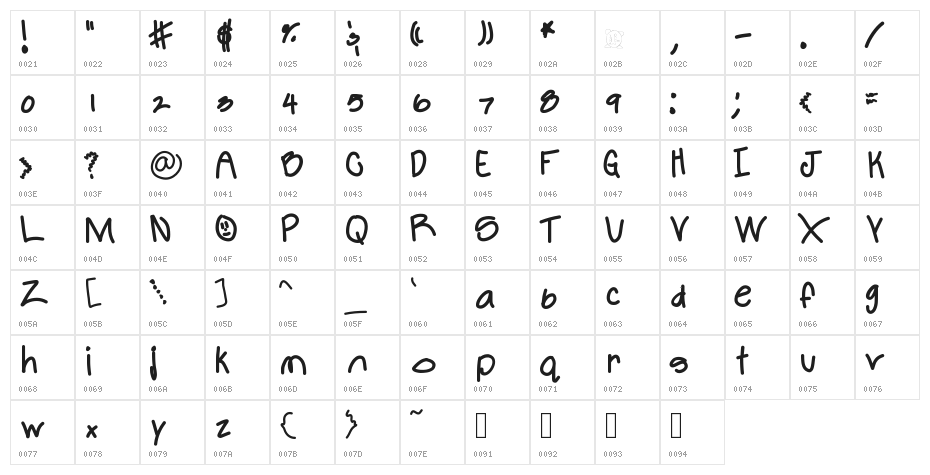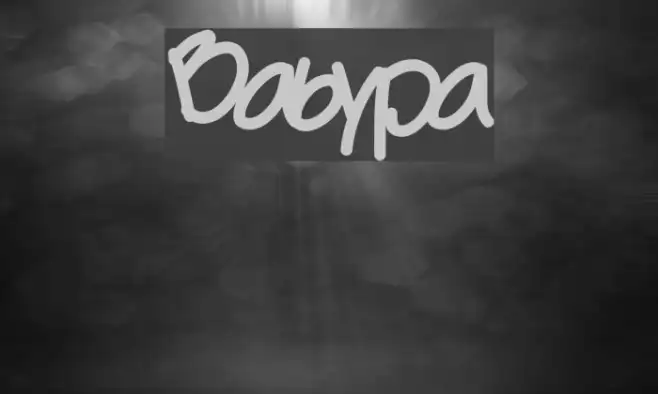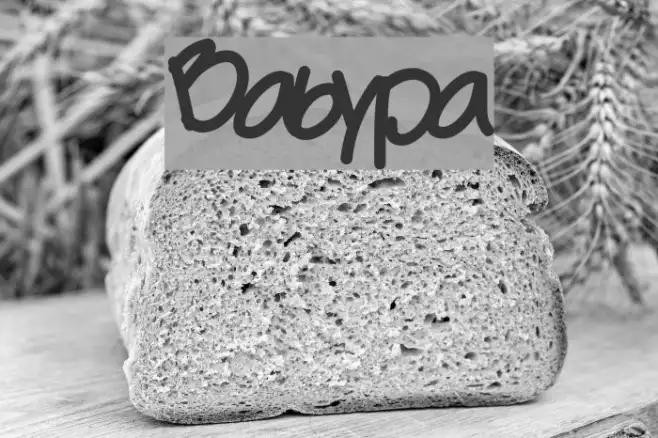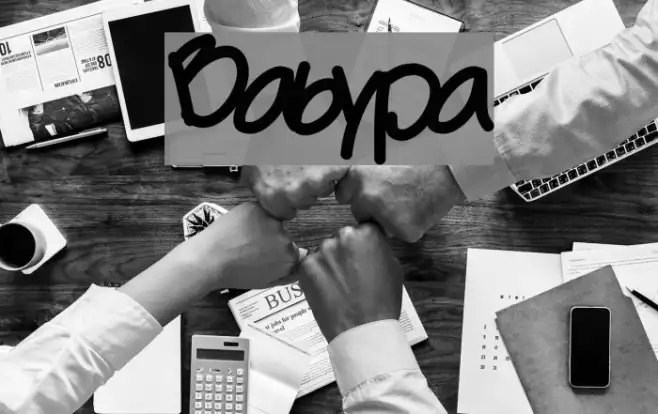
Babypa Font
Babypa Description
This font exhibits a playful and dynamic handwritten style, characterized by its bold and expressive strokes. The letters are crafted with a casual flair, giving off a youthful and energetic vibe. The uppercase and lowercase letters maintain a consistent flow, with rounded edges and a slightly exaggerated form that enhances its informal appearance. Numbers and special characters follow the same lively design, making the font versatile for various creative applications. The overall look is both approachable and distinctive, ideal for projects that aim to convey a sense of fun and creativity.
| Overall Style | Playful, Casual |
| Proposed Projects | Ideal for children's books, playful branding, casual invitations, and creative social media graphics. |